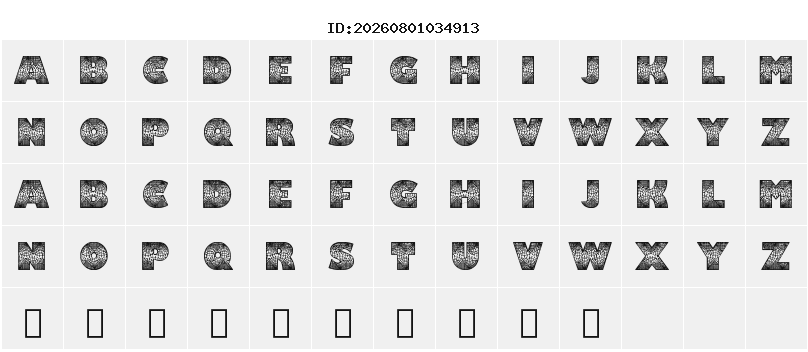
Lacy.ttf is a modern, elegant sans-serif font designed for ultimate readability and visual harmony. Perfect for branding, headlines, web design, and print materials.